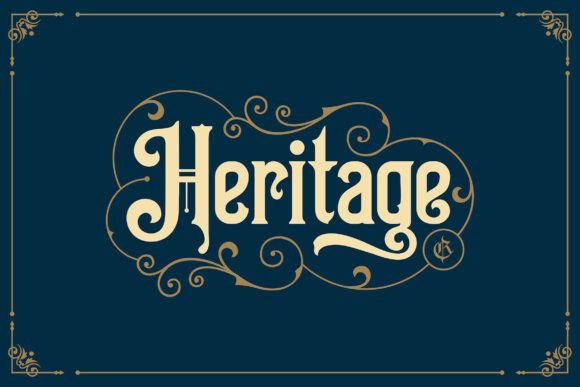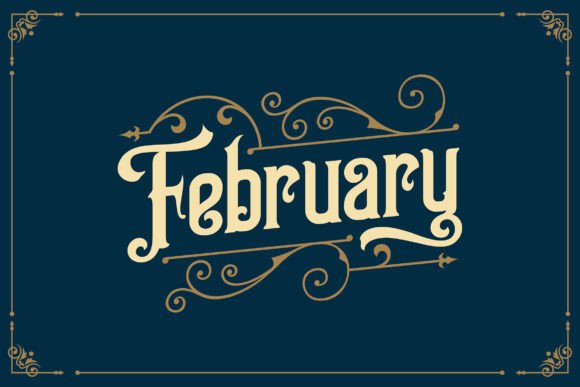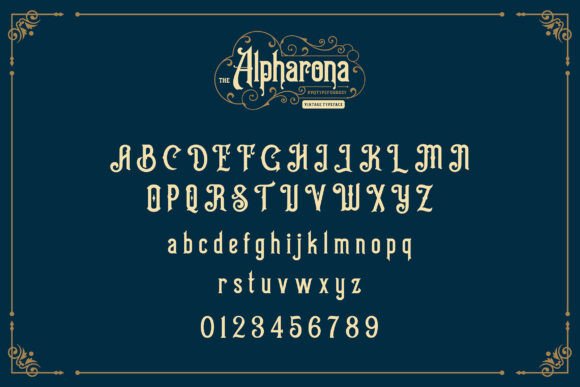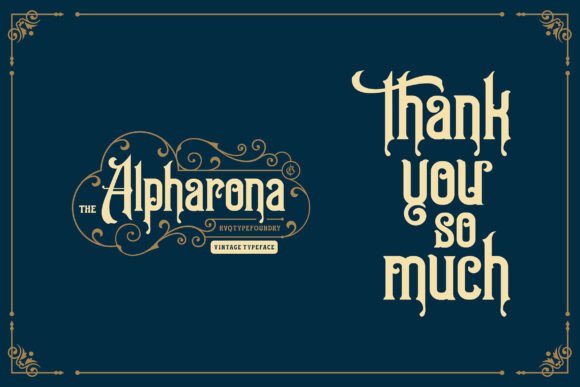
Introducing Alpharone Font: A Vintage Blackletter Masterpiece
Are you a designer or crafter looking for a unique and stylish font to elevate your creative projects? Look no further than Alpharone Font, a vintage blackletter font that exudes elegance and sophistication. In this article, we’ll dive into the features and benefits of Alpharone, and explore how you can use it to create stunning combinations that will make your work stand out.
What is Alpharone Font?
Alpharone Font is a beautifully crafted vintage blackletter font that is perfect for designers and crafters who want to add a touch of classic charm to their projects. With its intricate details and ornate flourishes, Alpharone is sure to impress. The font includes a full set of capital and lowercase letters, as well as multi-lingual support, currency figures, numerals, punctuation, and some extra glyphs.
Key Features of Alpharone Font
- Uppercase and Lowercase Letters: Alpharone Font includes a full set of capital and lowercase letters, allowing you to create stunning combinations that are sure to impress.
- Multi-Lingual Support: With Alpharone, you can create projects in multiple languages, making it perfect for designers and crafters who work with international clients.
- Currency Figures: Alpharone includes a range of currency figures, making it easy to create financial documents, invoices, and more.
- Numerals and Punctuation: The font includes a full set of numerals and punctuation marks, ensuring that you have everything you need to create professional-looking projects.
- Extra Glyphs: Alpharone also includes some extra glyphs, giving you even more creative options to work with.
Tips and Tricks for Using Alpharone Font
- Experiment with Different Sizes: Alpharone Font looks great in a range of sizes, from small and delicate to large and bold. Experiment with different sizes to find the one that works best for your project.
- Mix and Match: Don’t be afraid to mix and match different letters and glyphs to create a unique look. This is where Alpharone really shines.
- Use it for Headings and Titles: Alpharone Font is perfect for headings and titles, adding a touch of elegance and sophistication to your designs.
- Pair it with Other Fonts: Alpharone Font pairs well with other fonts, such as sans-serif fonts. Experiment with different pairings to find the one that works best for your project.